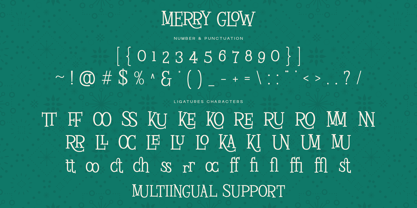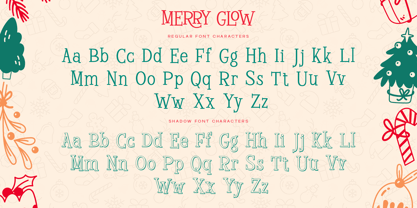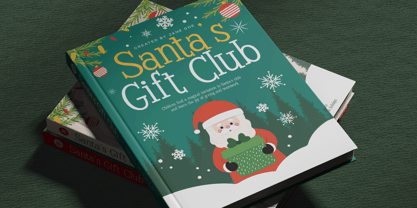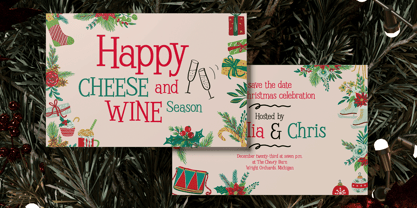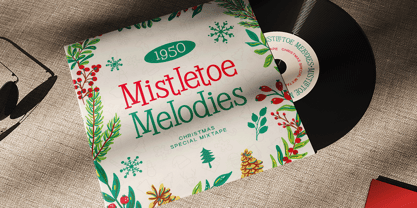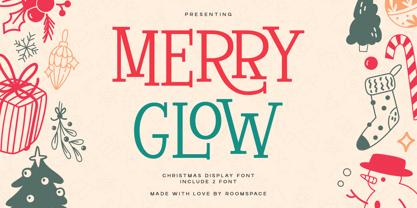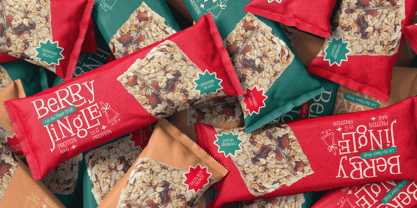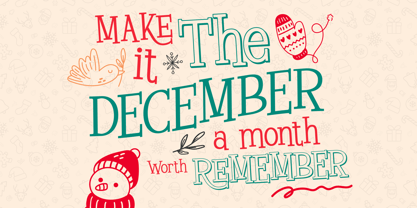
Merry Glow
The Merry Glow Font Family was designed by Bakhrudin Ja'far and published by Jafar07. Merry Glow contains 2 styles and family package options. More about this family
Merry Glow is a festive Christmas display serif that brings warm holiday cheer to every design. Featuring 2 fonts a classic serif and a decorative Christmas variant Merry Glow delivers joyful, vintage-inspired character perfect for seasonal branding and cozy creative projects. Crafted with playful curves and cheerful details, this font is ideal for holiday cards, Christmas packaging, invitations, social media designs, and festive merchandise. Merry Glow is festive, joyful, and charming. A Christmas display serif with warm curves, holiday elegance, and playful seasonal character. Vibe cheerful vintage Christmas cozy, nostalgic, and decorative. Features: 2 Christmas Display Fonts Decorative holiday elements Uppercase & lowercase Multilingual support Beautiful festive serif style Perfect For: Holiday branding, Christmas cards, packaging, ornaments, invitations, stickers, posters, social media posts, and craft-making.